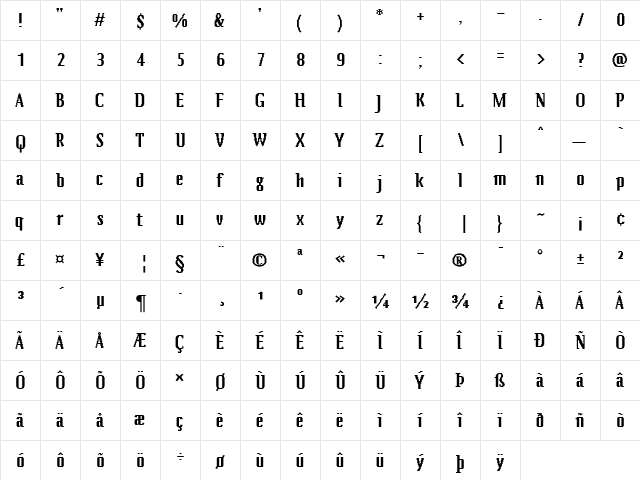
Zeitgeist MT Bold
Zeitgeist MT offers clean, dependable letterforms without strong stylistic allegiance, making it a practical choice for designers who need flexibility. The heavy weight commands attention and anchors typographic hierarchies.